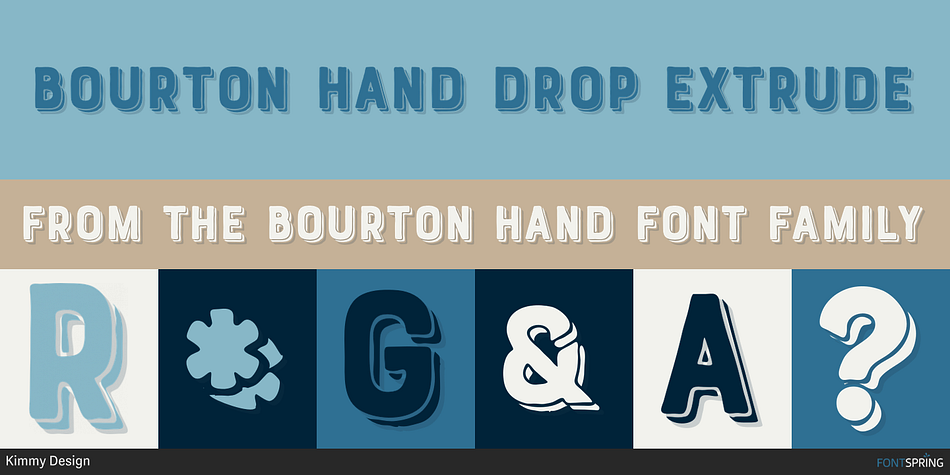
BOURTON HAND DROP EXTRUDE
Designed by Kimmy Kirkwood, Bourton Hand is a display sans, script and dingbat font family. This typeface has thirty-four styles and was published by Kimmy Design.
Bourton Hand is a new typeface by Kimmy Design. It’s the hand drawn version of Bourton and a sans-serif cousin to Burford. In addition to a new look, it boasts more layering options, stylistic alternatives, graphic extras and even comes with its own script font!
Okay…so here’s everything you get with Bourton Hand:
• 6 Base Layer Fonts (Base, Inline, Marquee, Stripes A, Stripes B, Stripes C, Sketch A, Sketch B)
• 6 Top Layer Fonts (Base Drop, Dots, Line Light/Medium/Bold, Outline Light/Medium/Bold)
• 6 Extrude Fonts (Extrude, Outline, Shadow, Extrude Outline)
• 5 Drop Shadow Fonts + 5 solo styles (Drop Shadow, Drop Extrude, Drop Line, Drop Stripes A, Drop Stripes B)
• 2 Line Fonts for secondary text (Line Medium, Line Bold)
• Bourton Hand Script Light
• Bourton Hand Script Bold
• Bourton Hand Extras - Ornaments, banners, frames, borders, flags and line break
• Bourton Hand Extras - Flourishes
Style Extrude